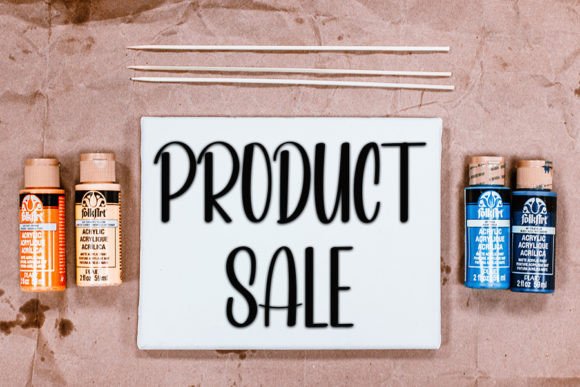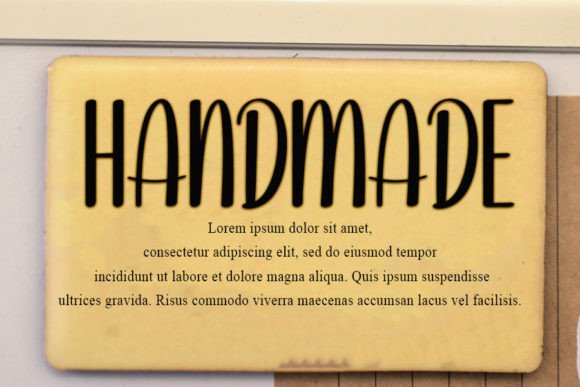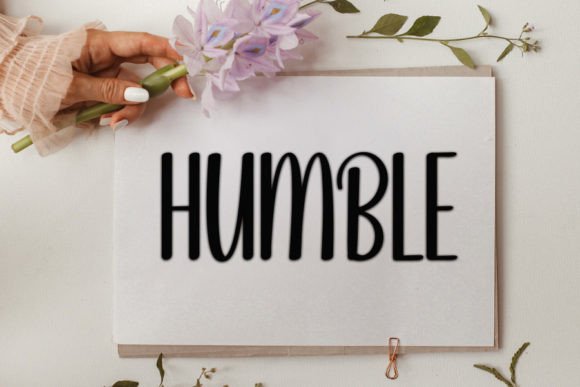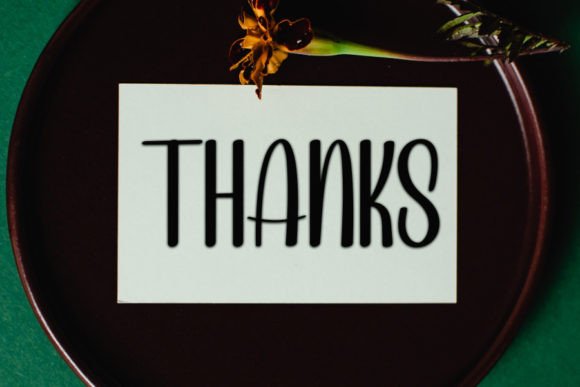
Autumn Farmhouse Font
About Autumn Farmhouse Font
**Autumn Farmhouse** is a clean and exquisite handwritten font that exudes elegance and timelessness. It features an incredibly distinct and refined style that is perfect for a wide variety of creative projects. Whether you’re working on invitations, posters, branding, or any other design endeavor, this font will add a touch of sophistication and charm to your work.
The font’s elegant handwritten style is the core of its appeal. It lends an air of refinement and classic beauty to your designs, making them stand out and exude a timeless quality. Whether you’re crafting vintage-inspired invitations or creating artistic posters, **Autumn Farmhouse** seamlessly integrates into various design contexts.
**Autumn Farmhouse** is equally versatile in digital and print applications. Whether you’re using it to design an elegant digital invitation or incorporating it into printed materials, the font retains its clean and timeless character. Its readability ensures that your message is conveyed effectively, while its handwritten style adds an extra layer of visual sophistication.
What sets **Autumn Farmhouse** apart is its ability to convey a sense of elegance and classic beauty. It invites your audience to engage with your creative ideas in a way that resonates with its distinct and timeless quality. With **Autumn Farmhouse** as part of your creative toolkit, you have the means to infuse a sense of sophistication and creativity into your designs, making them memorable and captivating.
**Autumn Farmhouse** offers a wide range of customization options, allowing you to fine-tune your text to align perfectly with your creative vision. This flexibility empowers you to craft designs that match your artistic preferences with precision.
In conclusion, **Autumn Farmhouse** is more than just a font; it’s a design asset that elevates your creative projects with elegance, timelessness, and a touch of classic beauty. Embrace its elegant handwritten style, and let it inspire you to craft designs that exude sophistication and creativity. With **Autumn Farmhouse** at your disposal, your creative possibilities are expansive, enabling you to create captivating and unforgettable works of art through its neat and beautifully crafted typography.